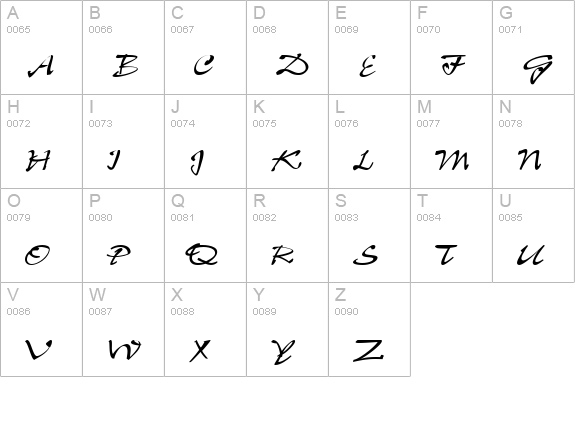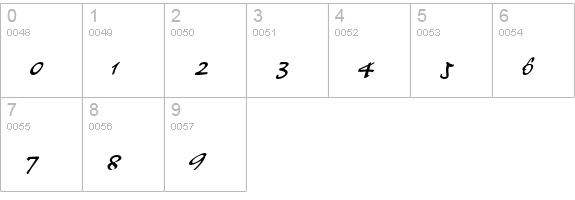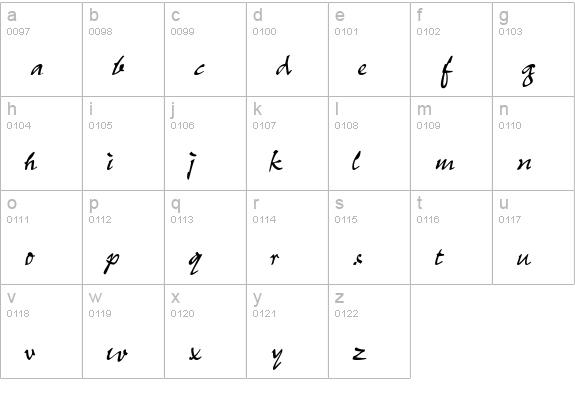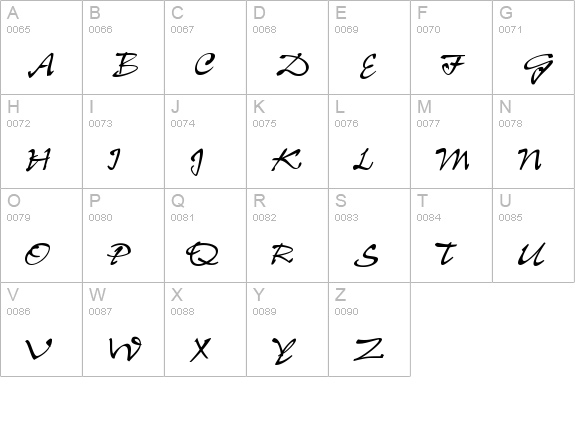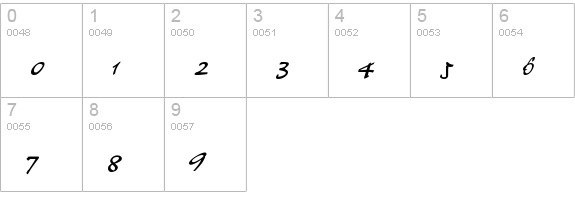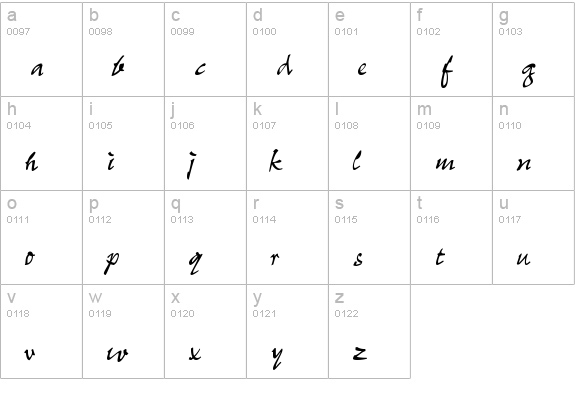
Introducing Pepper font, a stunning and versatile typeface that is sure to make your design projects sizzle! With its sleek and modern aesthetic, Pepper font effortlessly captures attention and elevates any piece of text it graces. Featuring a perfect blend of elegance and boldness, this font is ideal for a wide range of applications, from branding and advertising to packaging and web design. Its well-balanced proportions and clean lines create a harmonious look, ensuring legibility and readability even at small sizes. But what truly sets Pepper font apart is its accessibility - it's free! That's right, this remarkable font can be freely downloaded at FontsMarket.com. Now, you can enhance your creative endeavors without breaking the bank. Whether you're a professional designer or an aspiring artist, Pepper font empowers you to unleash your creativity without limitations. Not only does Pepper font offer exquisite aesthetics and affordability, but it also provides an extensive range of glyphs and language support. You can effortlessly communicate your message in various languages, making this font a truly global solution for your design needs. So why wait? Experience the captivating allure of Pepper font today. Download it for free at FontsMarket.com and witness how it transforms your designs into works of art. Let Pepper font be the secret ingredient that adds a touch of spice and sophistication to your creations.